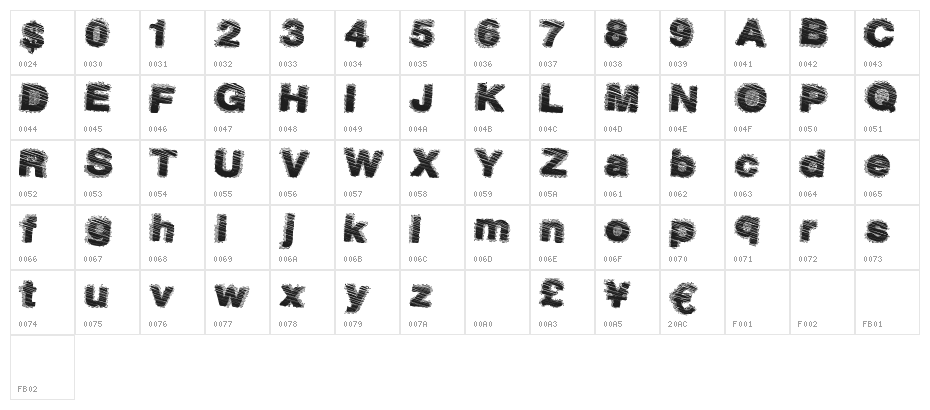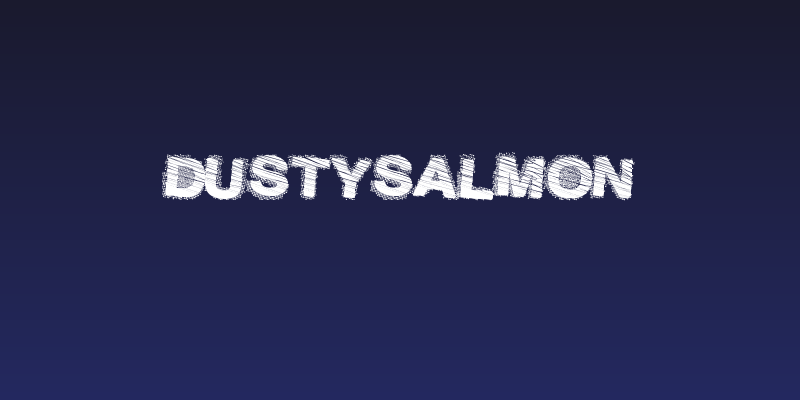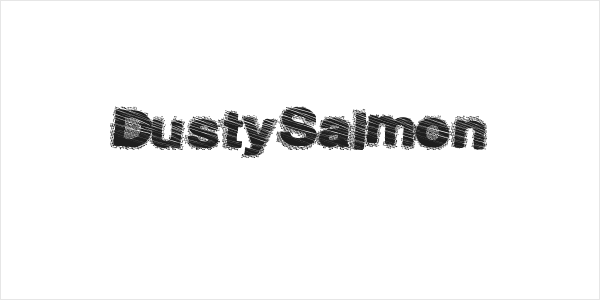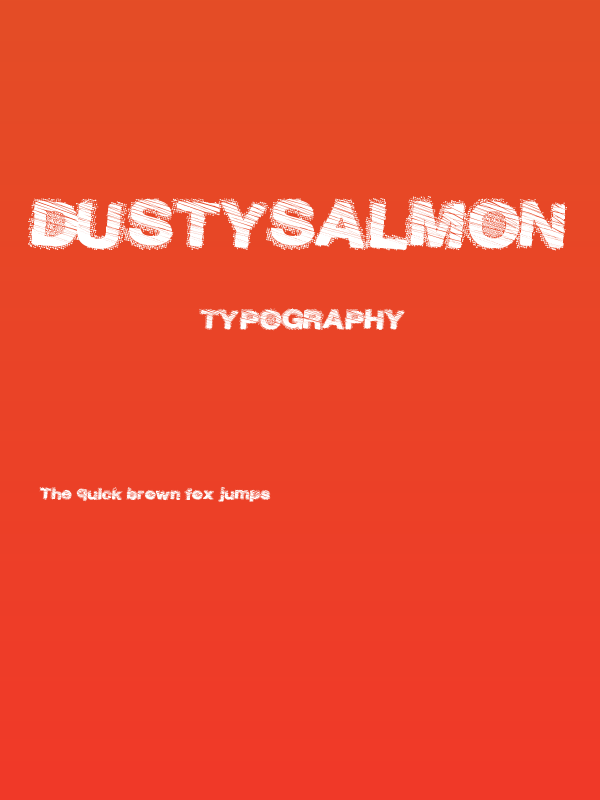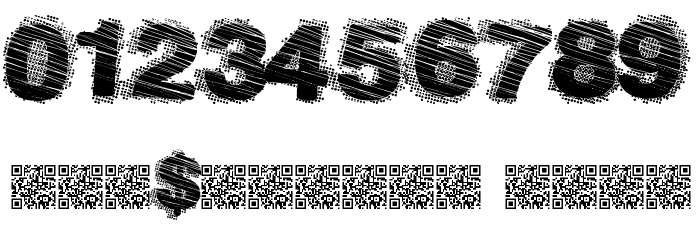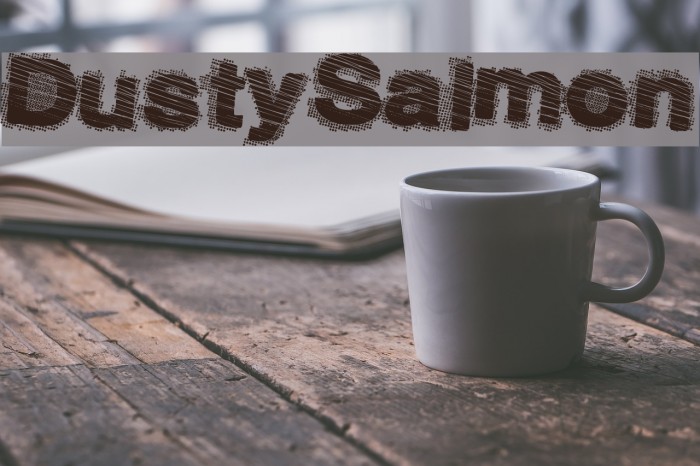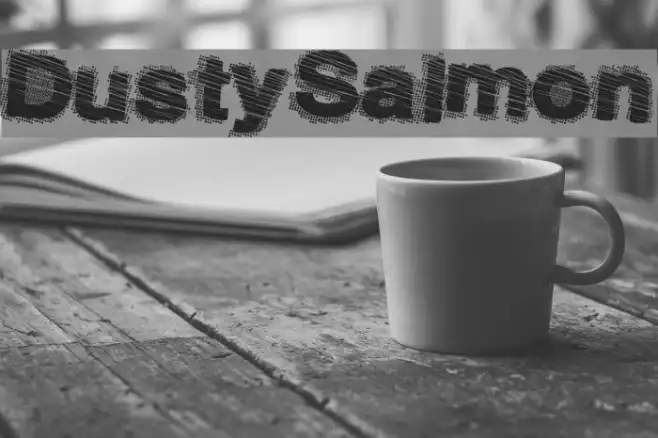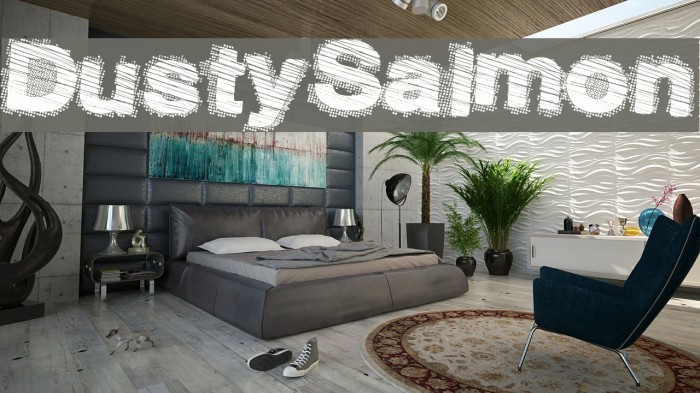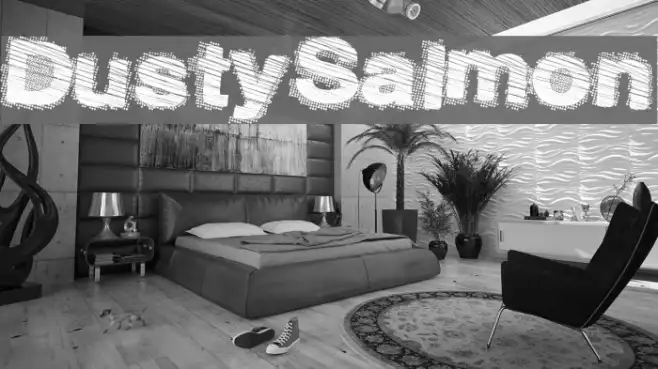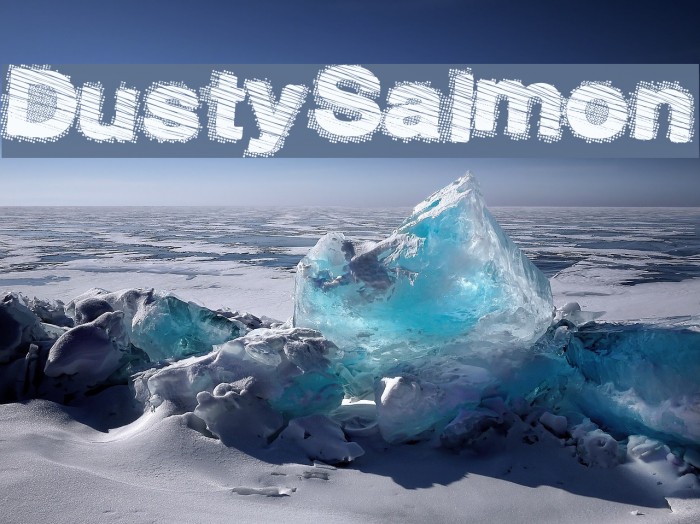
DustySalmon Font
DustySalmon Description
This font features a bold and dynamic style with a textured, distressed appearance. The characters are filled with a pattern that gives them a gritty, worn look, reminiscent of vintage print techniques. The uppercase and lowercase letters maintain a consistent weight, providing a strong visual impact. Numbers and special characters follow the same design, ensuring uniformity across all glyphs. The font's unique texture makes it stand out, ideal for projects that require a rugged or industrial aesthetic.
| Overall Style | Vintage, Industrial |
| Proposed Projects | Ideal for posters, album covers, branding for edgy or industrial-themed products, and any design needing a bold, textured statement. |